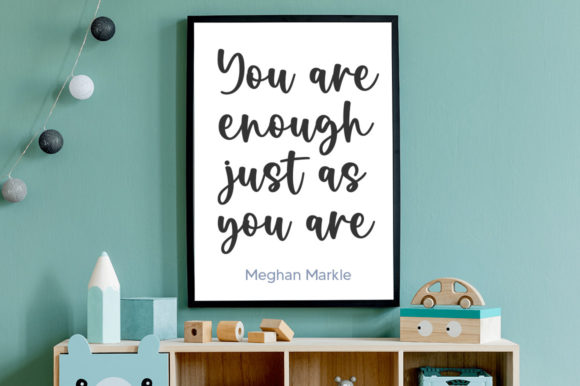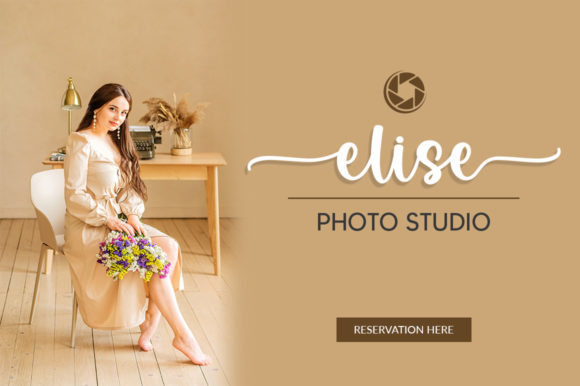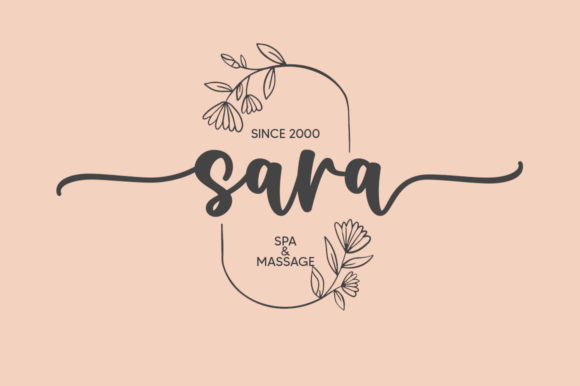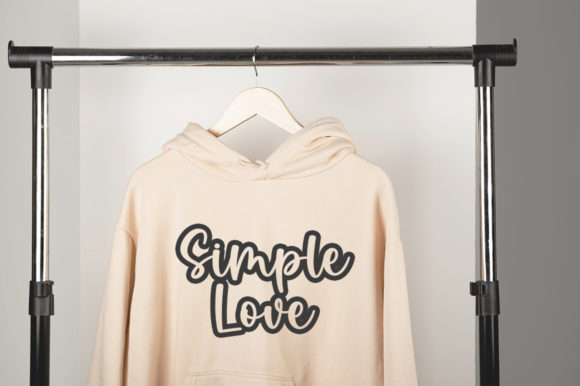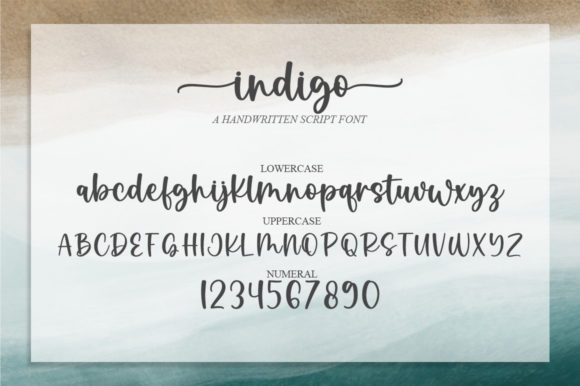
Introduction to Indigo Font
As a designer, you’ve probably found yourself in the middle of a project, staring at a blank page, trying to decide on the perfect font to bring your vision to life. That’s when you stumble upon it – a font that speaks to you, a font that whispers elegance and sophistication. For me, that font is the Indigo Font, a delicate and refined script font that has become my go-to design resource.
The Indigo Font is more than just a pretty face; it’s a high-quality design asset that can elevate any creative project. With its stylish alternates and ligatures, this font is perfect for designers looking to add a touch of sophistication to their designs. And the best part? It’s PUA encoded, making it easy to access all glyphs and swashes, even on a transparent background.
Key Features of Indigo Font
- Designed to be highly legible, making it perfect for body text, headings, and titles in creative projects.
- Unique and modern design style, setting it apart from other fonts and making it a valuable addition to any design resource library.
Honest Review: Indigo Font
As a designer, I’m always on the lookout for high-quality design resources to elevate my creative projects. The Indigo Font caught my eye with its unique, modern aesthetic and transparent background, making it a versatile addition to any design project.
- ✨ Unique, hand-drawn feel that adds a touch of personality to any design project.
- ✨ Highly customizable with a range of font weights and styles to suit different creative needs.
- ✨ Perfect for logos, branding, and other design elements where a modern, minimalist look is desired.
- ⚠️ Limited character set, which may not be suitable for longer blocks of text.
- ⚠️ Not ideal for use in situations where a bold, attention-grabbing font is needed.
Overall, I’m impressed with the Indigo Font and its potential to add a touch of sophistication to my design projects. While it may not be suitable for every situation, it’s a great resource to have in my design toolkit, especially for free download.
The Indigo Font is perfect for a variety of projects, including:
- Graphic novels and comics
- Typography-based art and designs